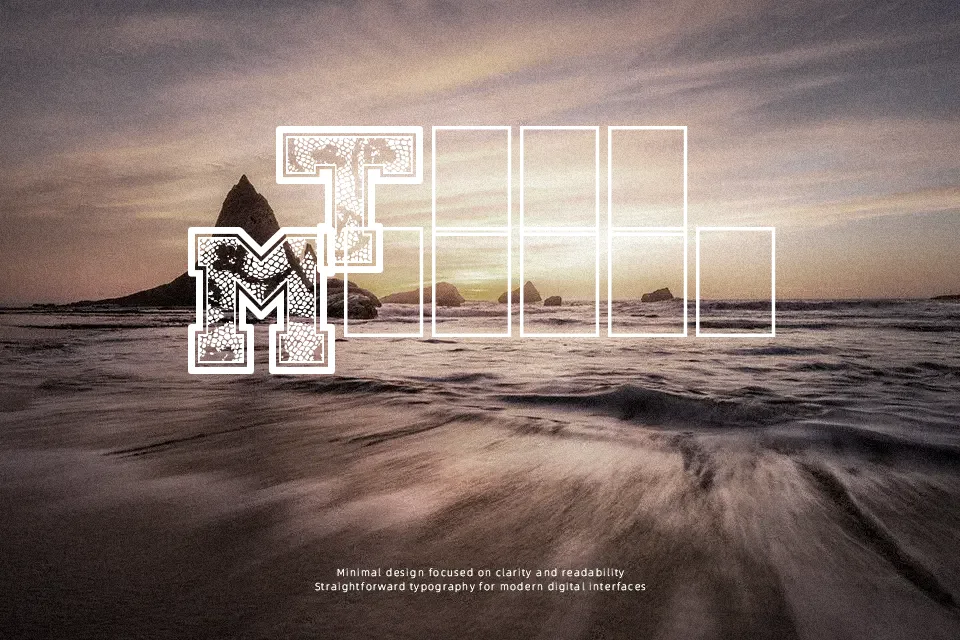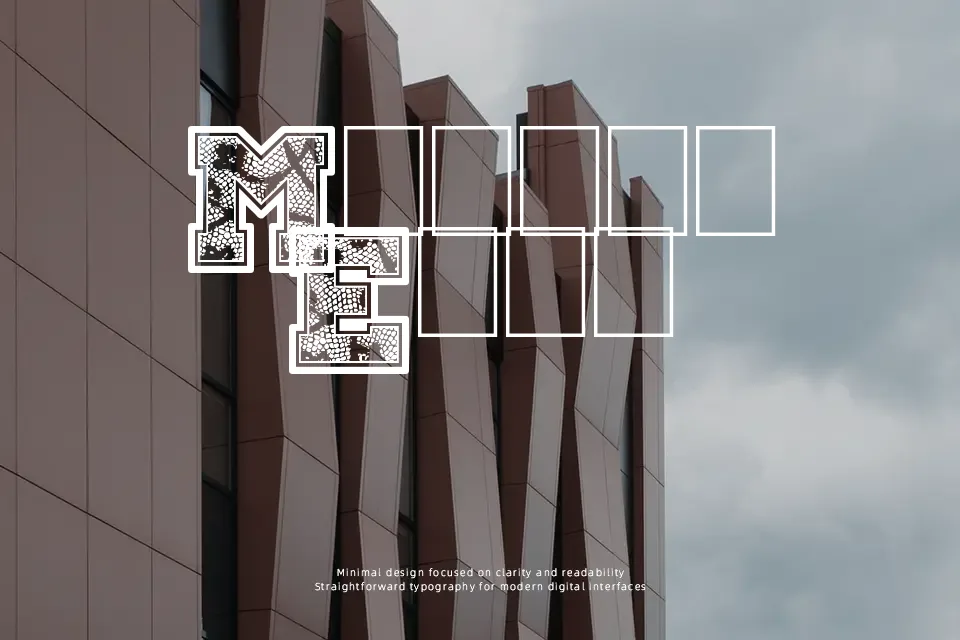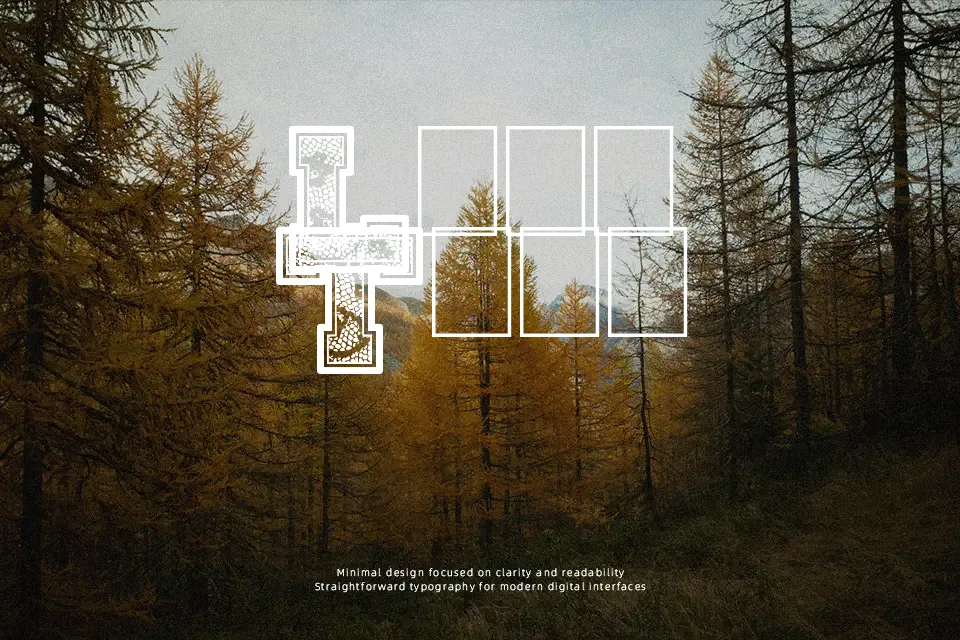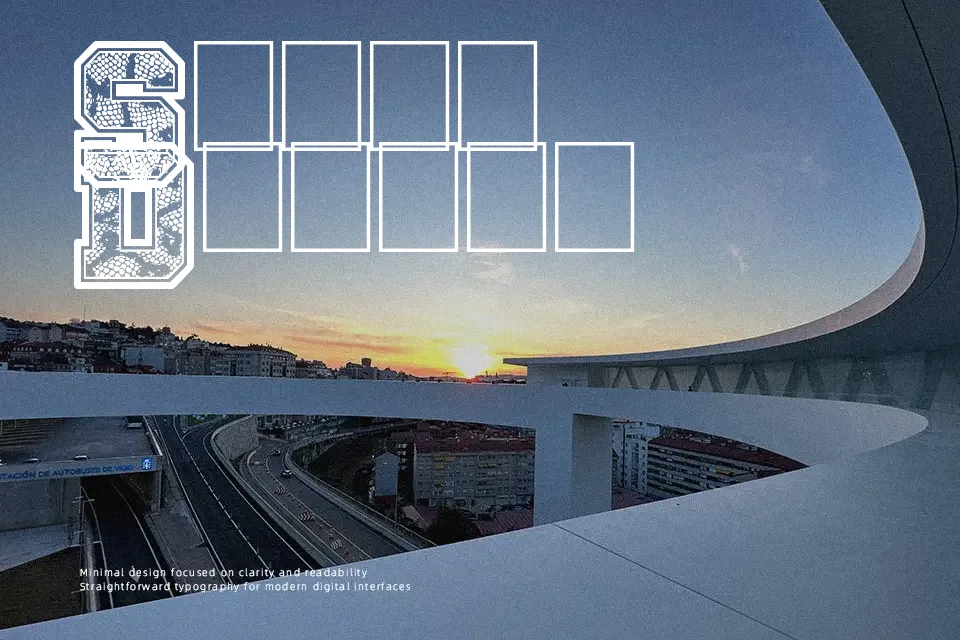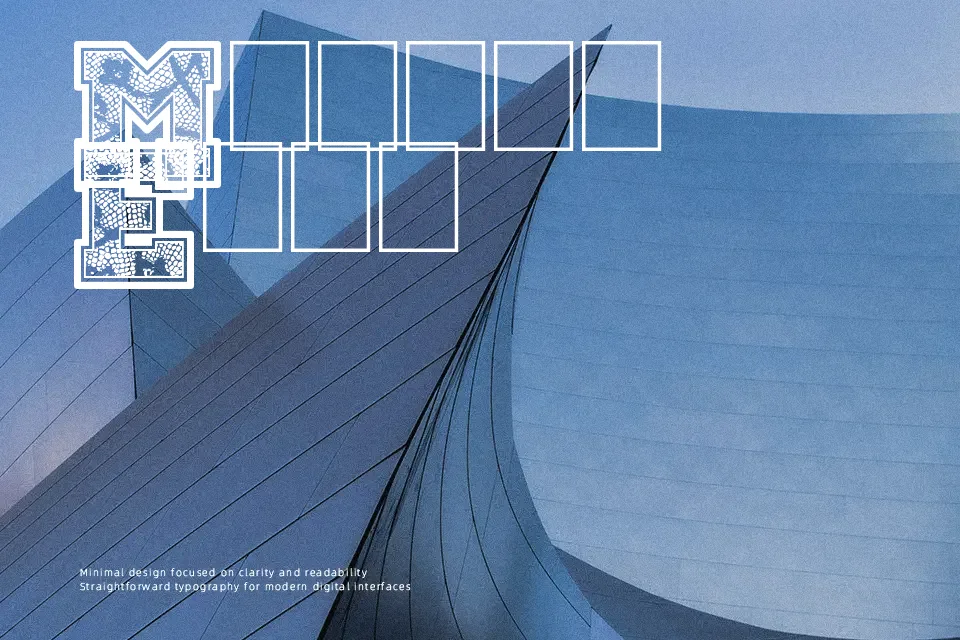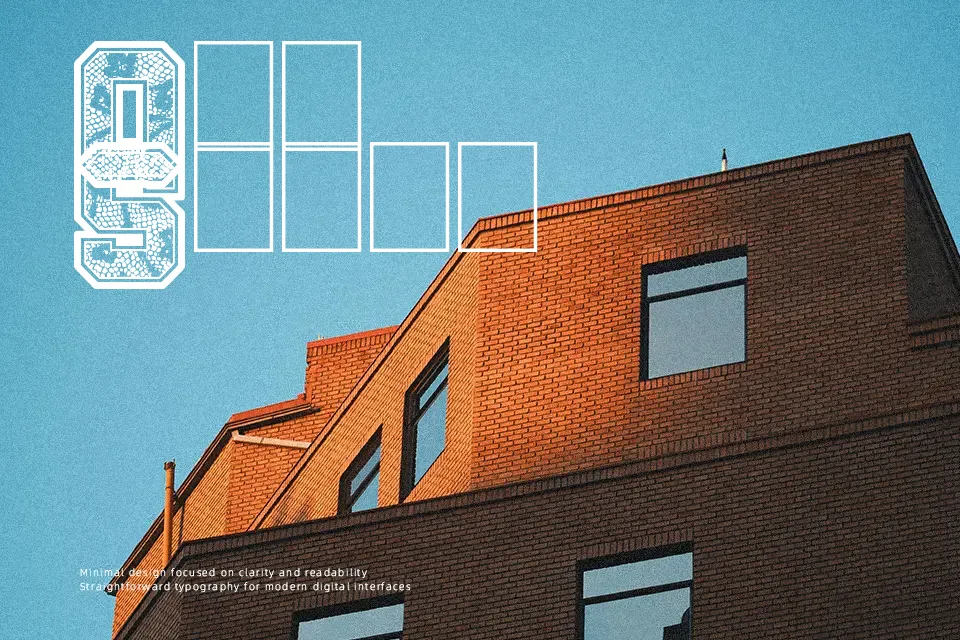
Cheer Lace Leader Font
Featuring thick geometric stems and intricate laced cutouts, Cheer Lace Leader Font captures attention through its heavy athletic slab construction. The letterforms maintain uniform block proportions, wide stances, and structured horizontal strokes that create a rhythmic, uniform cadence across short phrases. Generous internal spacing prevents the cutout patterns from muddying the primary silhouette at display scales. The typeface performs exceptionally well when applied to sportswear graphics, competition banners, and prominent tournament titling where immediate visual punch is necessary. However, the complex interior ornamentation significantly hinders legibility at smaller text sizes, making the font unsuitable for dense body copy or multi-line editorial compositions.
sports team merchandise, athletic competition banners, varsity event headlines, themed apparel graphics
continuous body copy, mobile user interface labels, dense editorial paragraphs, small printed legal text
Perfect for fashion, headline, and logo, with a bold and decorative style.